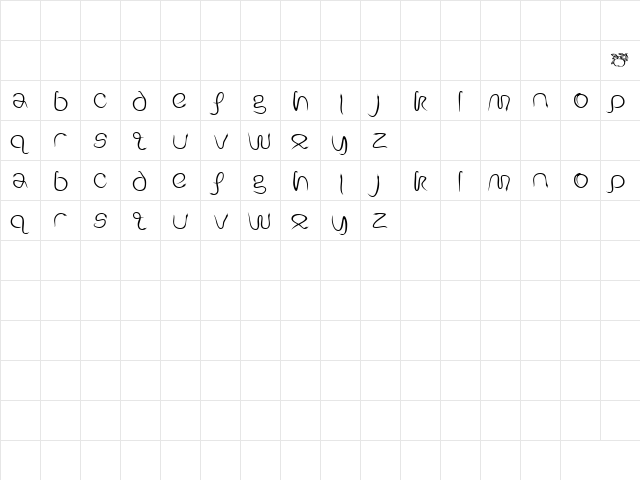
GE Serpentine Regular
Design Context for GE Serpentine Typeface
GE Serpentine is a composed and adaptable typeface that performs quietly and consistently across a wide range of design contexts.